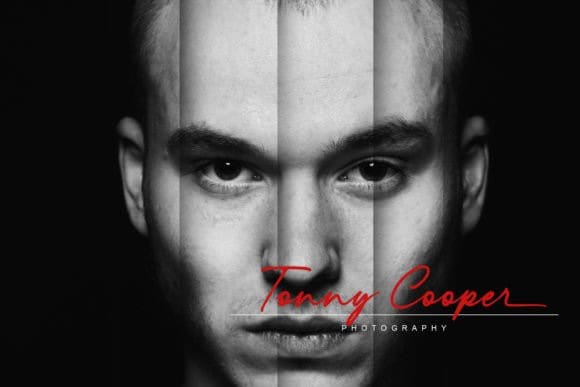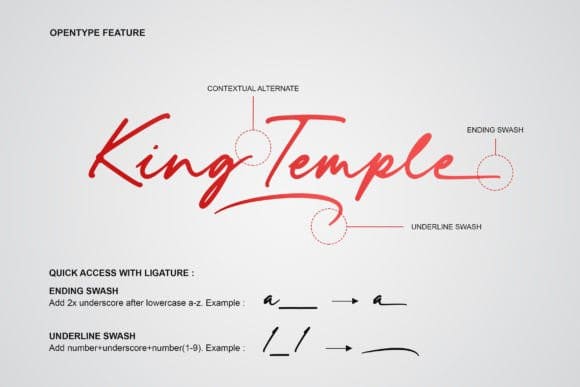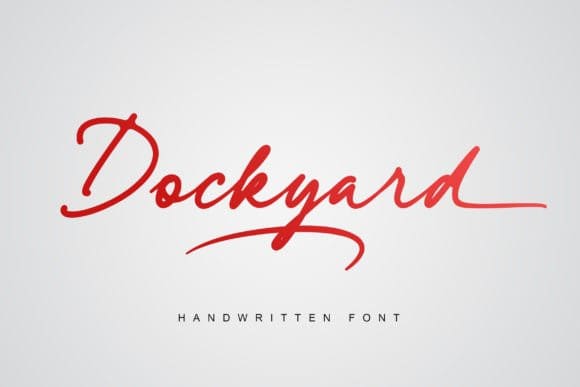
Dockyard Script Font
Dockyard Script Font is a relaxed handwritten font, that has a gentle and beautiful flow. This font is perfect for logos, wedding invitations, stationery, photography, social media posts, product packaging, greeting cards, and much more! Dockyard font is PUA encoded which means you can access all of the glyphs and swashes with ease!